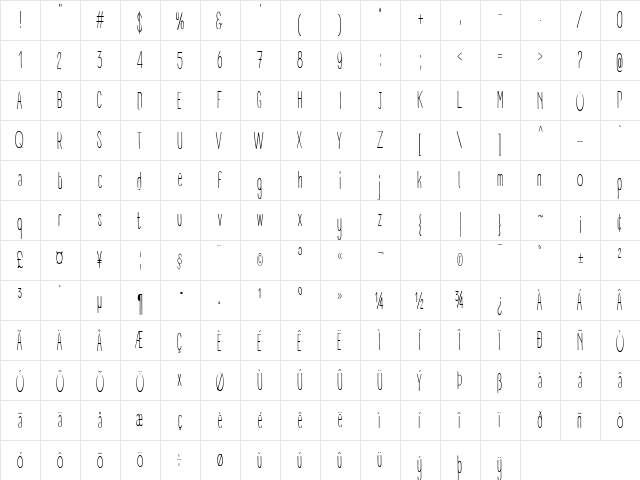
A DAY WITHOUT SUN Regular
| Foundry | Studio Kmzero |
| Designer | Cosimo Lorenzo Pancini |
Design Context for A DAY WITHOUT SUN Typeface
A DAY WITHOUT SUN offers clean, dependable letterforms without strong stylistic allegiance, making it a practical choice for designers who need flexibility.